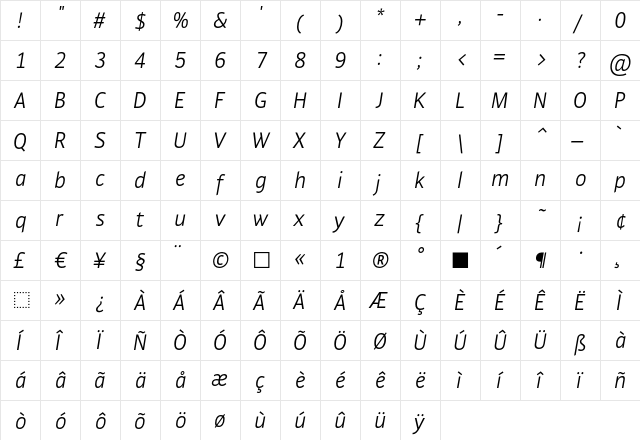
GakSans LightItalic
Design Context for GakSans Typeface
GakSans takes a measured approach to typography — its balanced proportions and neutral character make it a reliable workhorse for both digital and print work. Its italic angle brings a sense of urgency and motion to the letterforms. Its slender proportions lend an understated elegance to any composition.
Pro Tip: Use GakSans for emphasis, pull quotes, and subheadings where its slanted energy can add rhythm to the layout.